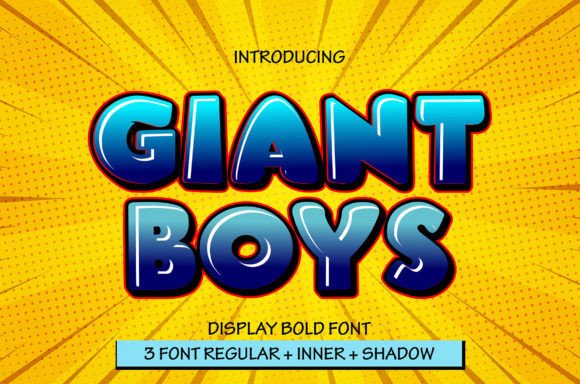
Looking for the best fonts for Cricut vinyl? Look no further than Giant Boys Font by Cikareotype! This display font is characterized by thick and rounded letterforms, making it the perfect choice for any design project that needs a touch of whimsy and charm.
One of the standout features of Giant Boys Font is its playful and friendly appearance. With its cute and bubbly letters, this font adds a touch of joy and fun to any project. It's an excellent choice for children's games, book covers, and any project related to schools.
Whether you're creating an educational game or a book cover for a children's book, Giant Boys Font is the perfect way to make your designs more engaging and enjoyable for young audiences. The bold and rounded letterforms make it easy to read, while the fun and playful appearance keeps things interesting.
Created by Cikareotype, Giant Boys Font is a versatile font that can be used in a wide range of design projects. Its thick and rounded letterforms make it an excellent choice for headlines, while its playful appearance makes it perfect for body text and captions.
In summary, if you're looking for a fun and engaging display font that will add a touch of whimsy and charm to your designs, look no further than Giant Boys Font. With its cute and bubbly letters, it's the perfect choice for any project related to schools, children's games, or book covers. Try it out today and see the difference it can make in your designs!